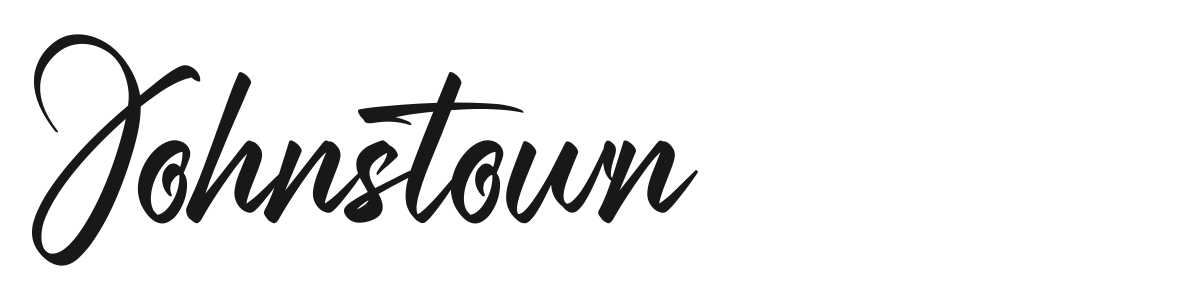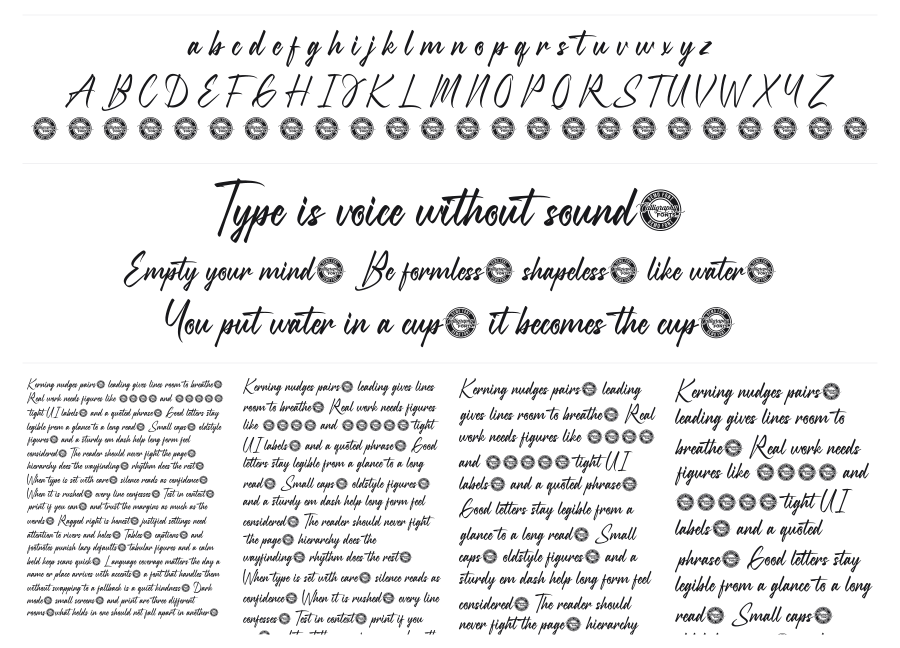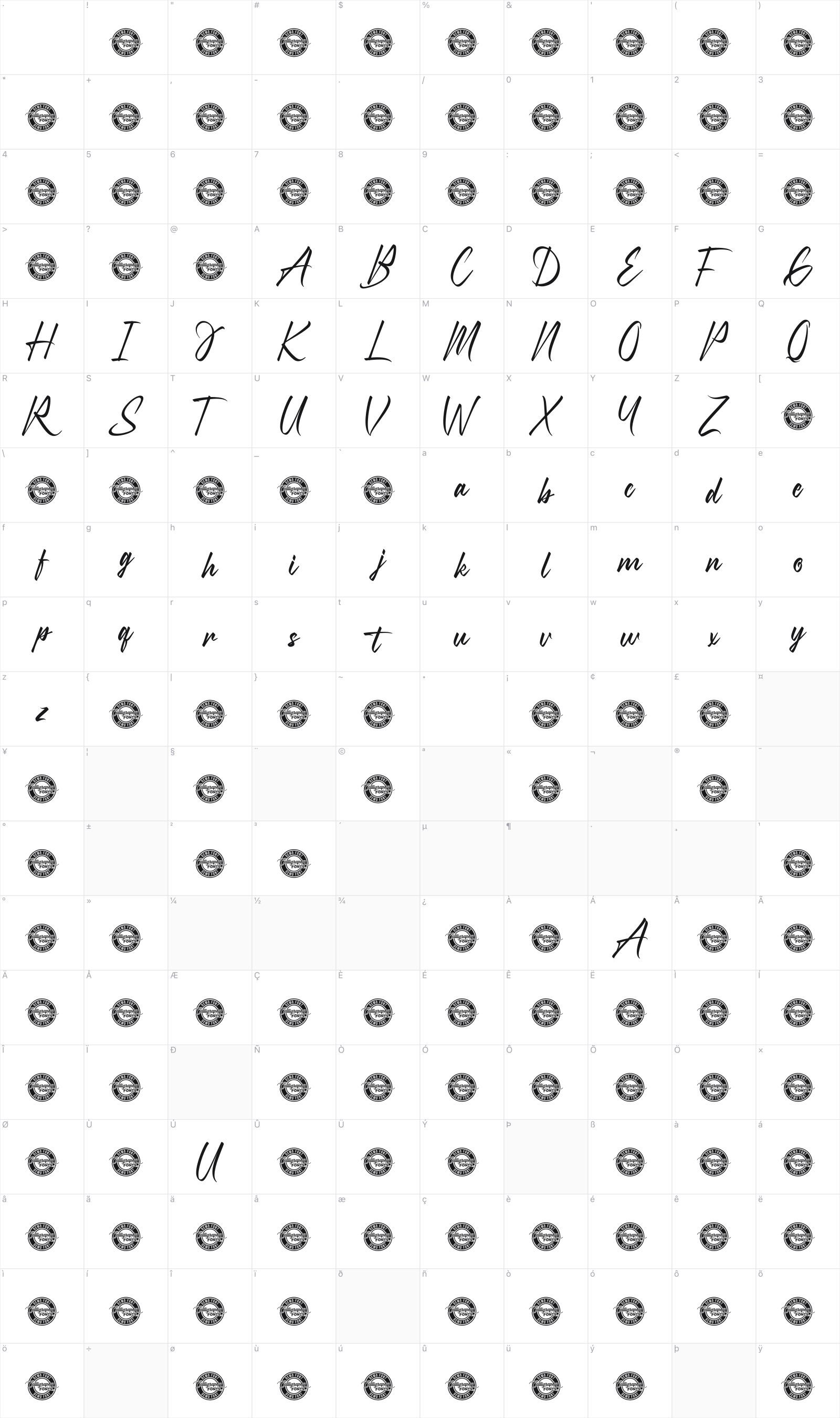
Johnstown
Johnstown is a bold brush script with lively, connected strokes and the confident rhythm of hand-lettered ink work. The high contrast between thick downstrokes and thin hairlines gives it an authentic calligraphic feel without feeling stiff or formal. It reads well at large sizes in branding, packaging, and editorial headlines.